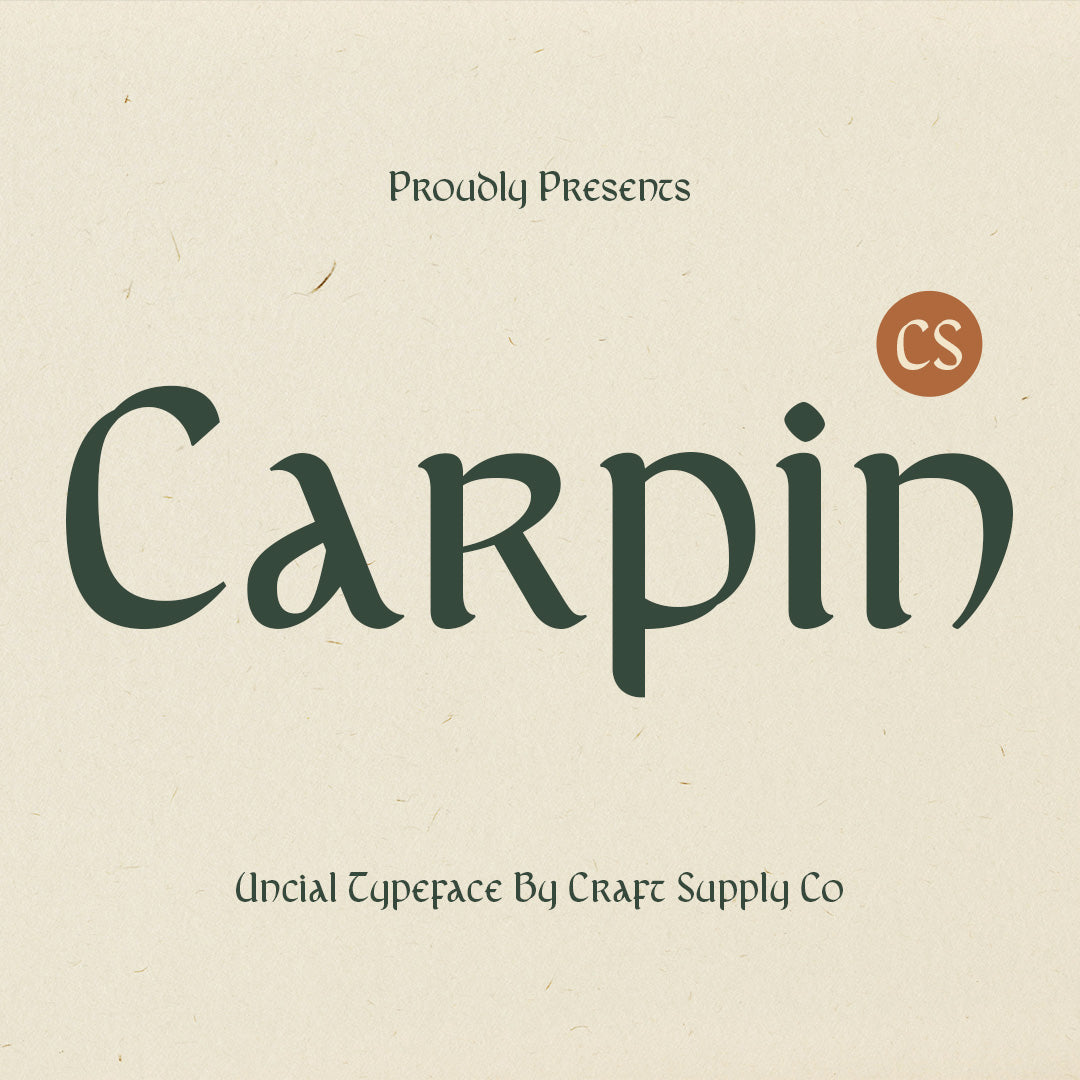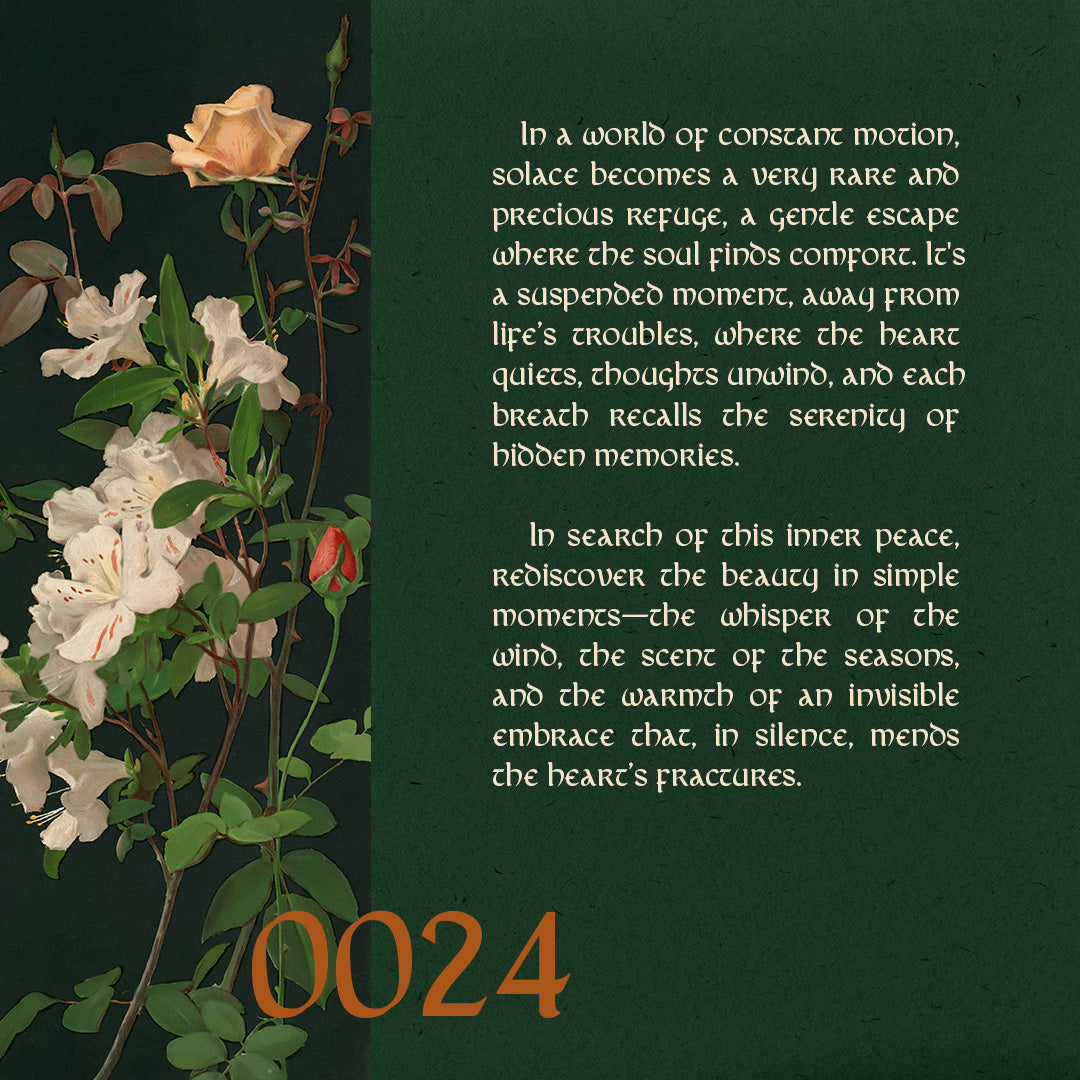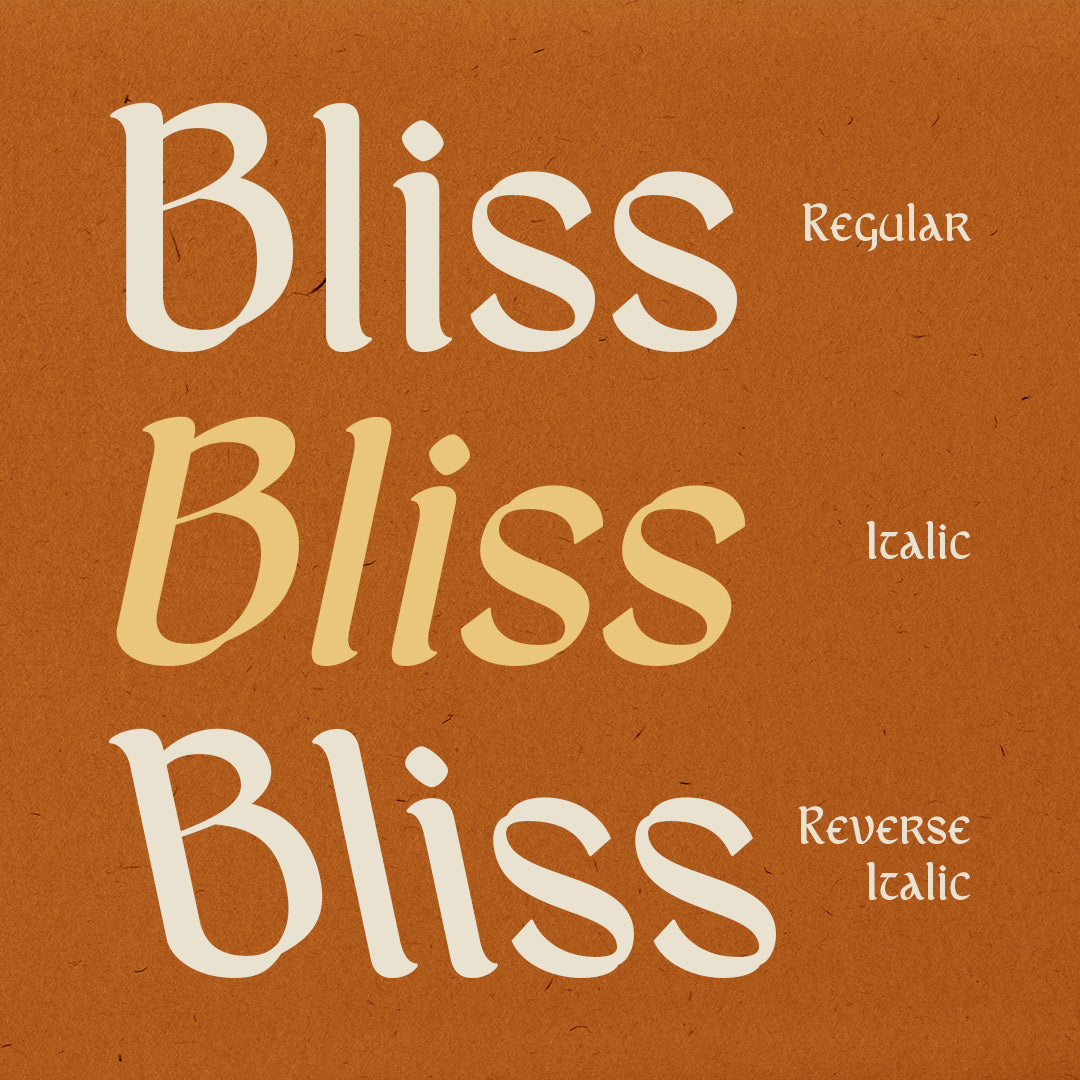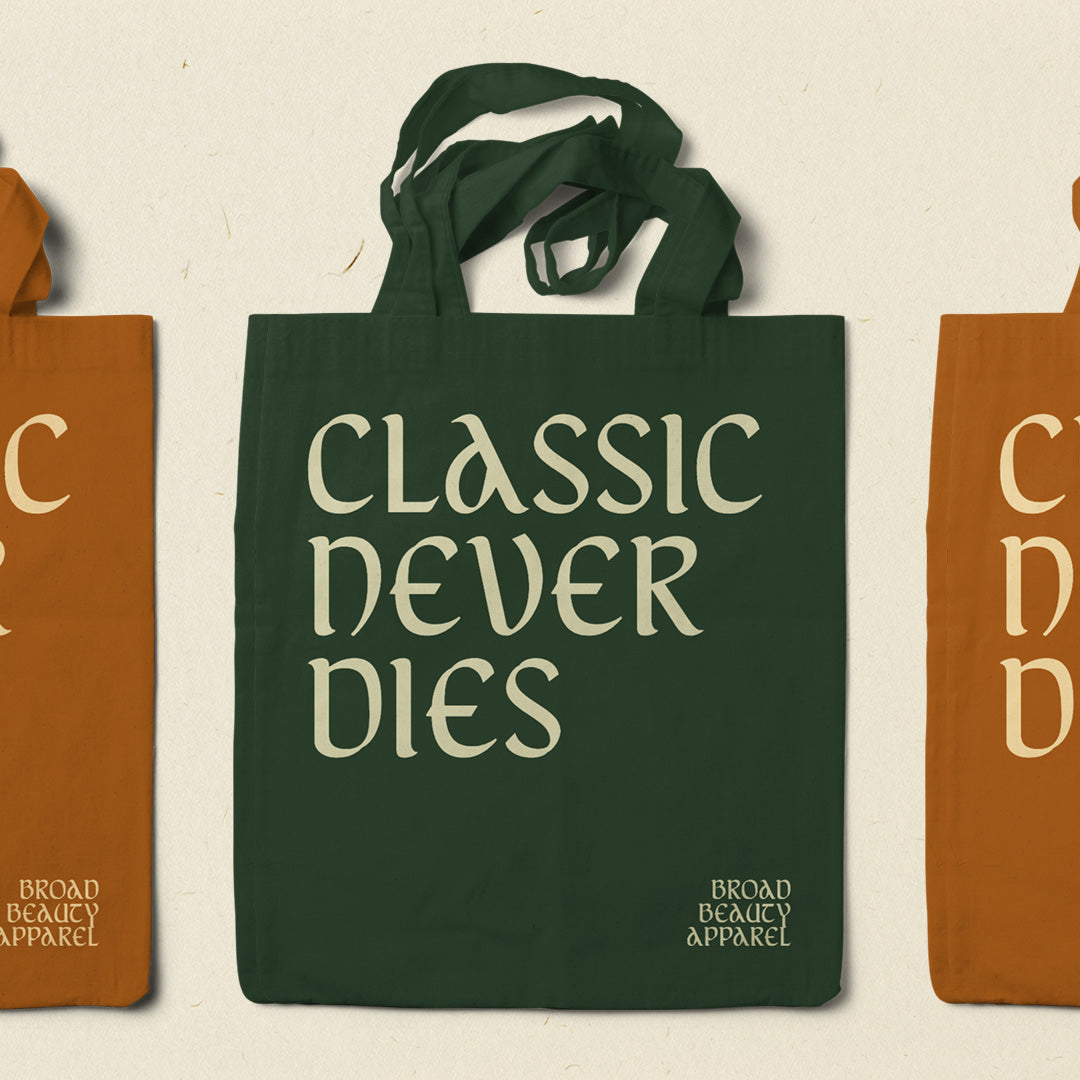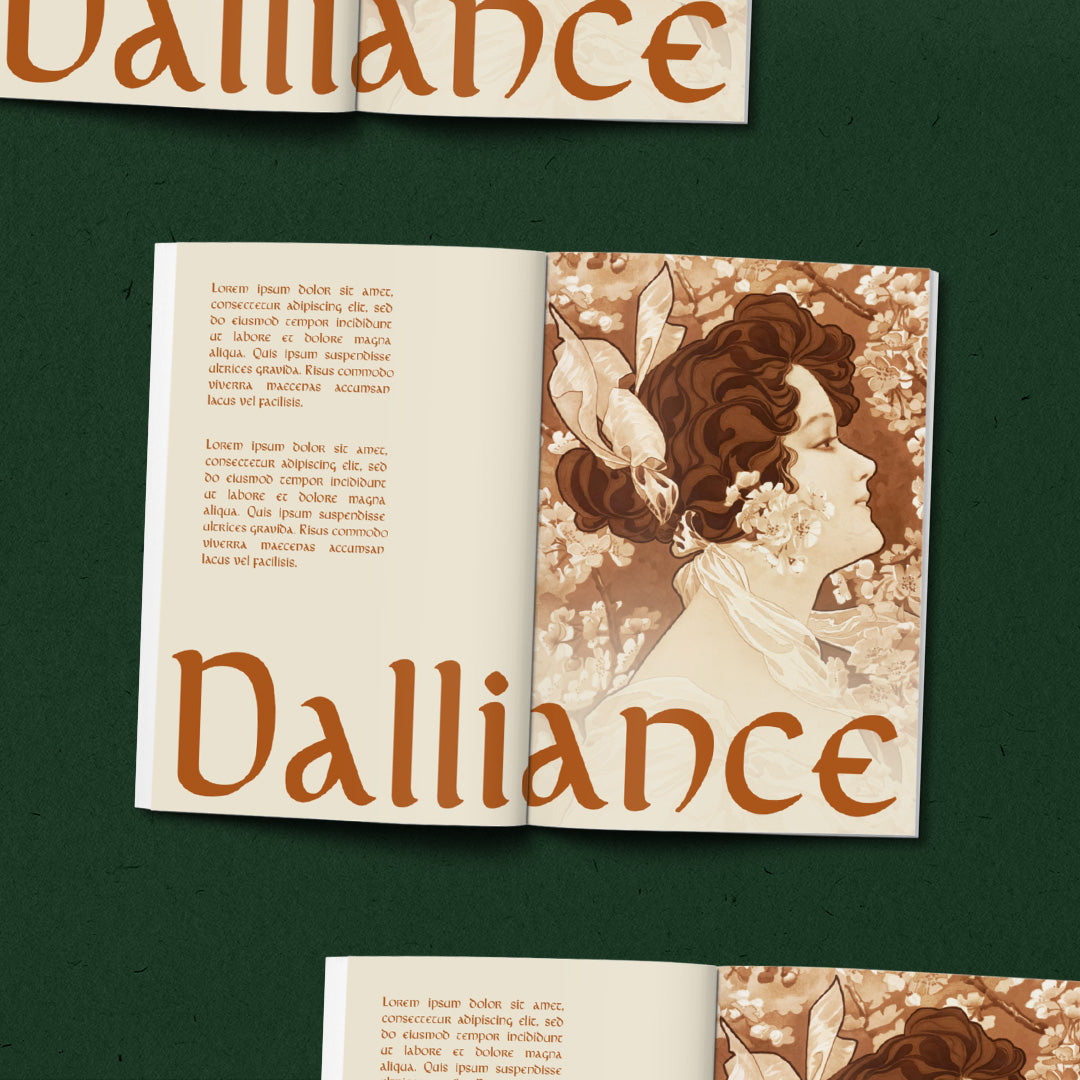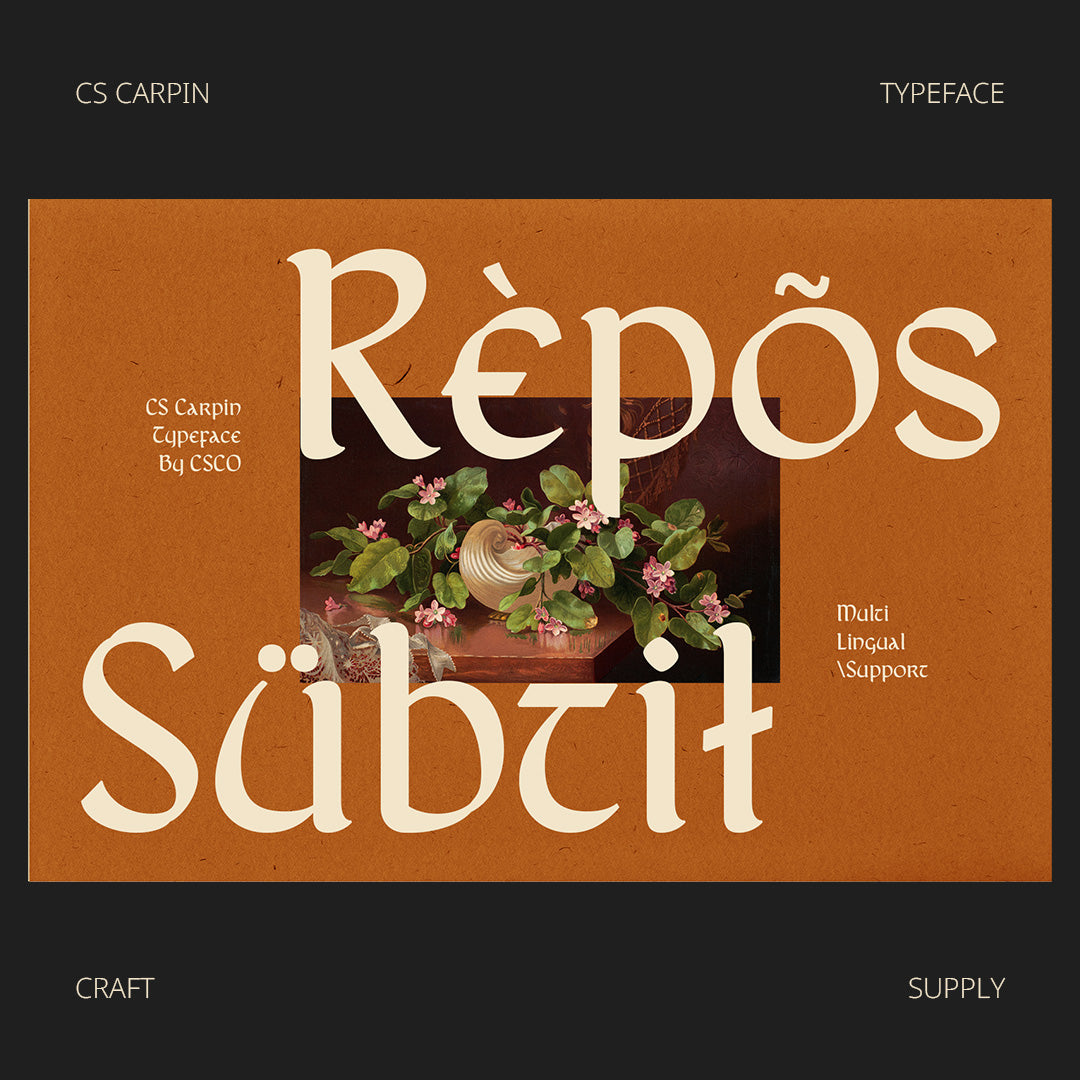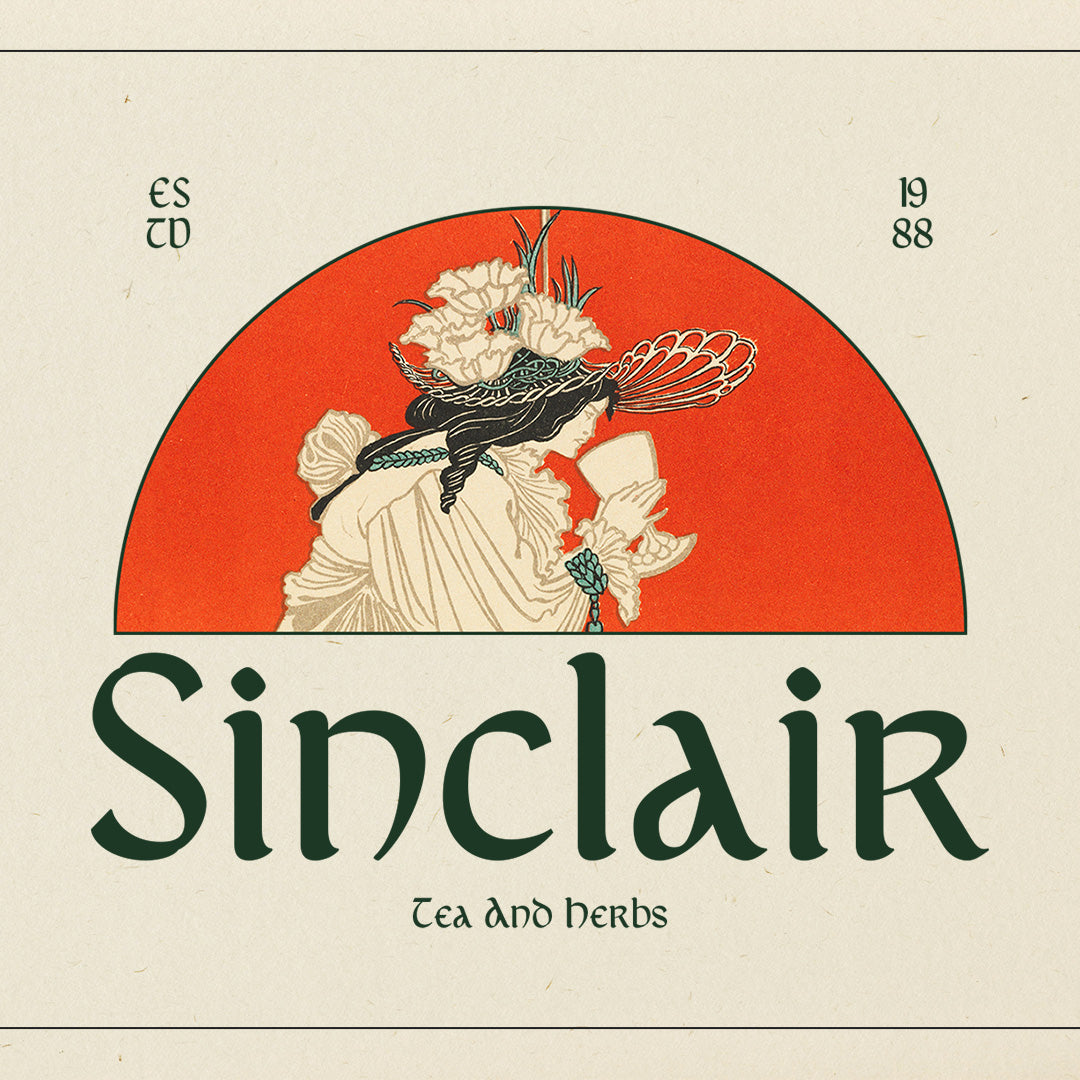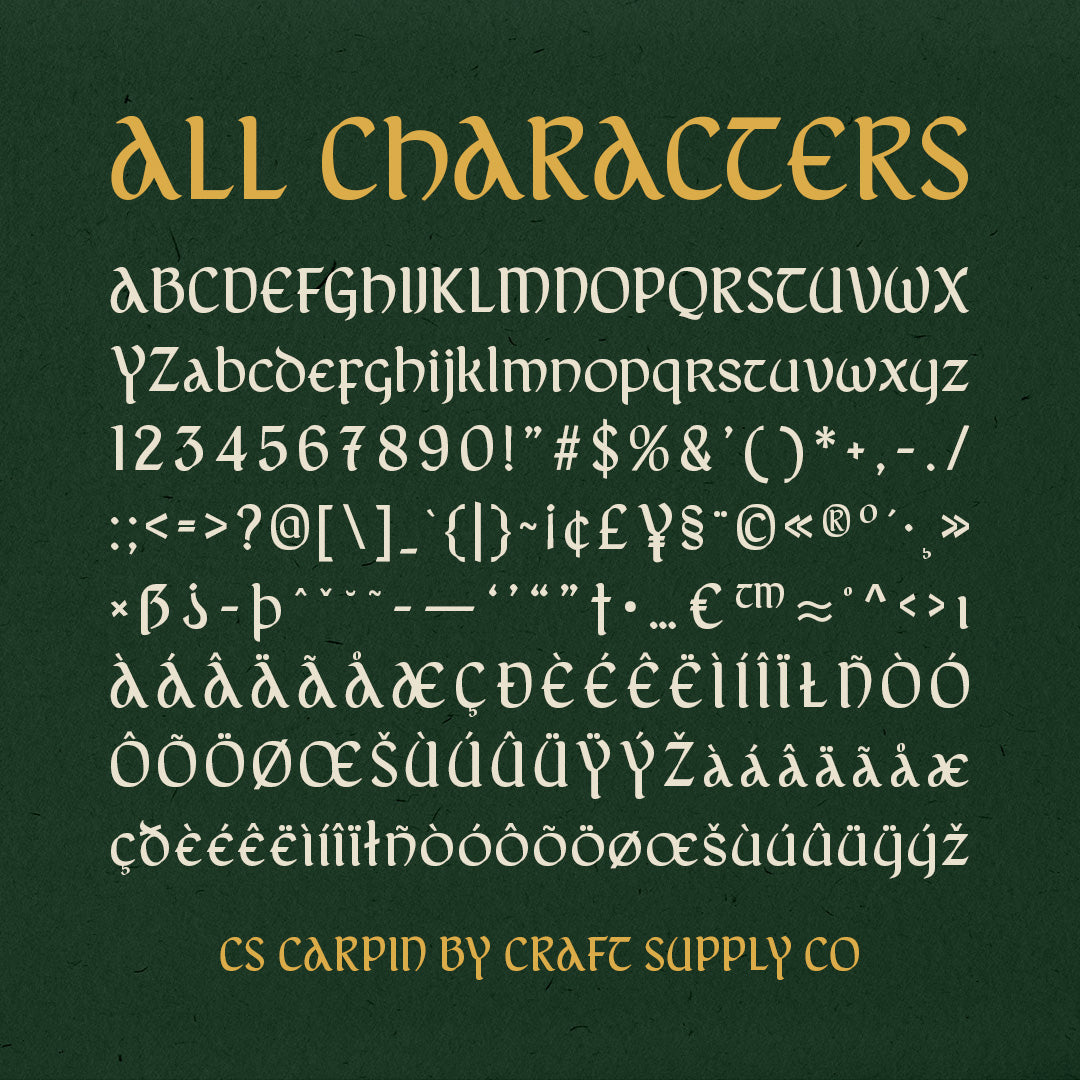
CS Carpin – Uncial Font
CS Carpin – Uncial Display Font
Medieval Elegance
CS Carpin is a captivating display font that draws inspiration from the rich history of medieval handwriting, showcasing the elegance and artistry of uncial script. Characterized by its round, flowing letterforms, this font brings a touch of antiquity to contemporary designs, making it perfect for a variety of creative applications. With its roots deeply embedded in the traditions of scriptoria, CS Carpin resonates with a timeless quality that speaks to the beauty of historical typography.
Perfect for Historical and Formal Designs
Ideal for projects that seek a touch of tradition and formality, CS Carpin is well-suited for a wide range of applications. Whether crafting elegant invitations, official documents, or art projects that celebrate the beauty of typography, this font elevates any design with its distinct charm. Its unique characteristics evoke a sense of authenticity, making it a popular choice for designs requiring a historical context or a refined aesthetic.
Artistic and Graceful Presence
The distinctive features of CS Carpin result in a font that is not only visually appealing but also full of character. Its graceful curves and balanced proportions create an inviting look, making it perfect for various creative applications. From book covers to decorative prints, branding, and even signage.
CS Carpin Regular
CS Carpin Italic
CS Carpin Reverse Italic
CS Carpin is an uncial display font inspired by medieval handwriting, featuring round, flowing letterforms that reflect the elegance of historical typography. The font package includes CS Carpin Regular, Italic, and Reverse Italic styles, making it suitable for various creative applications.